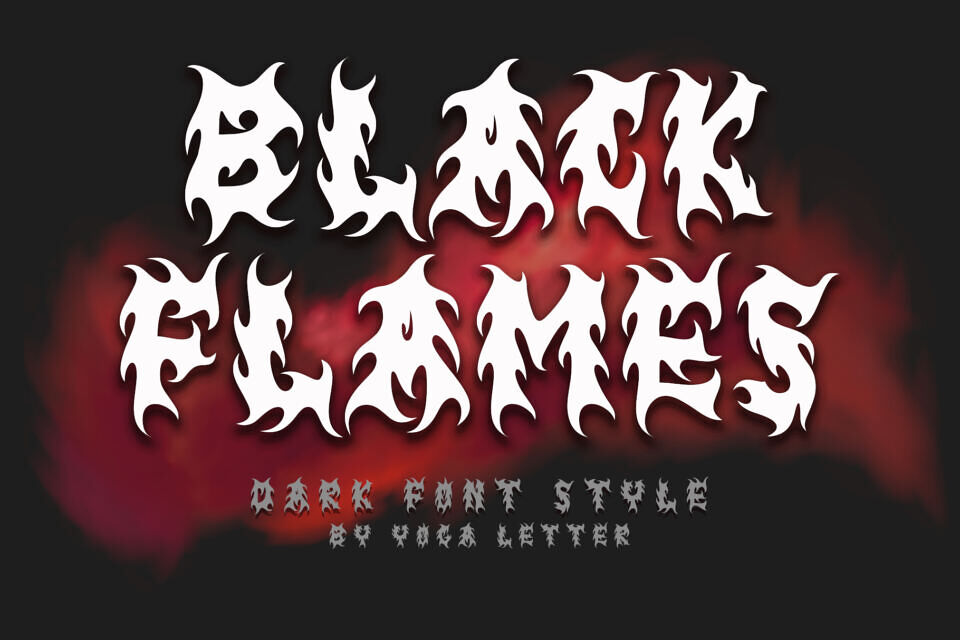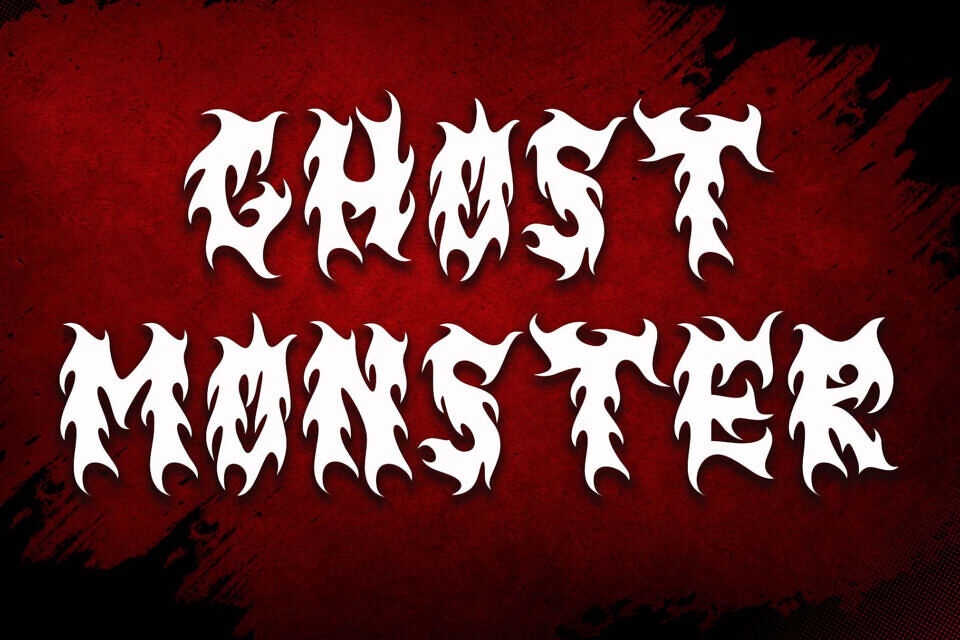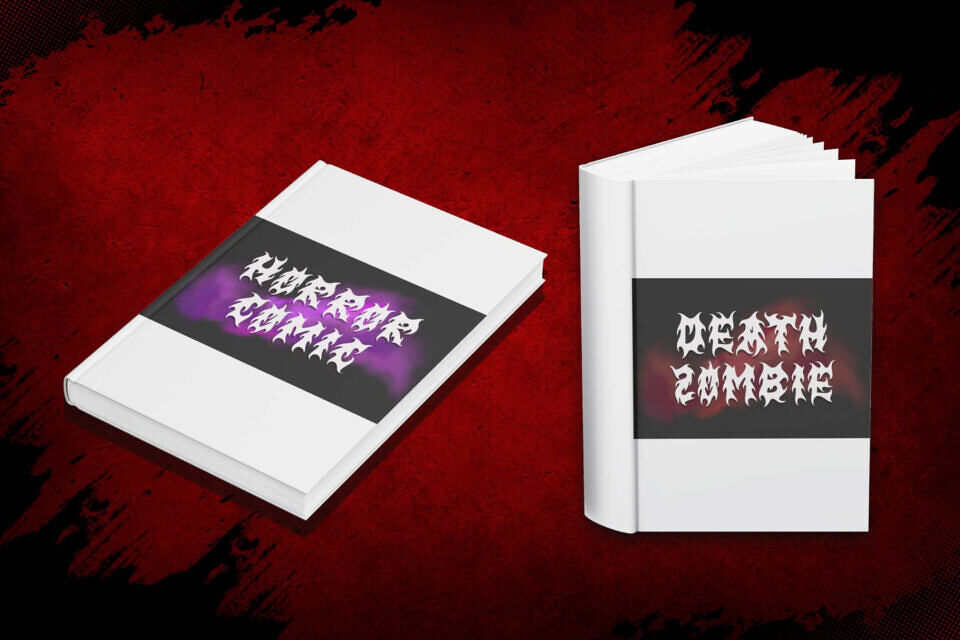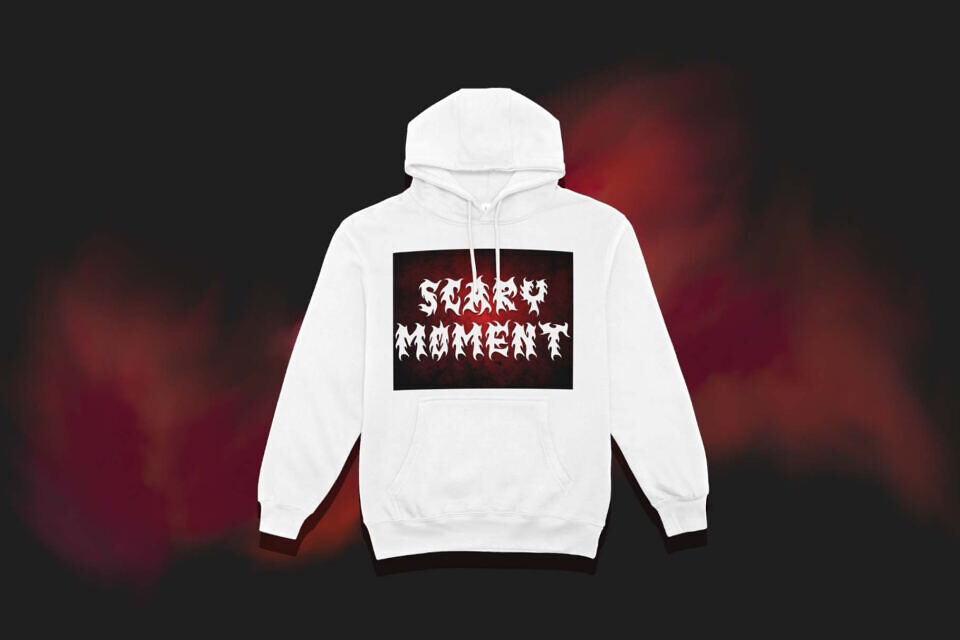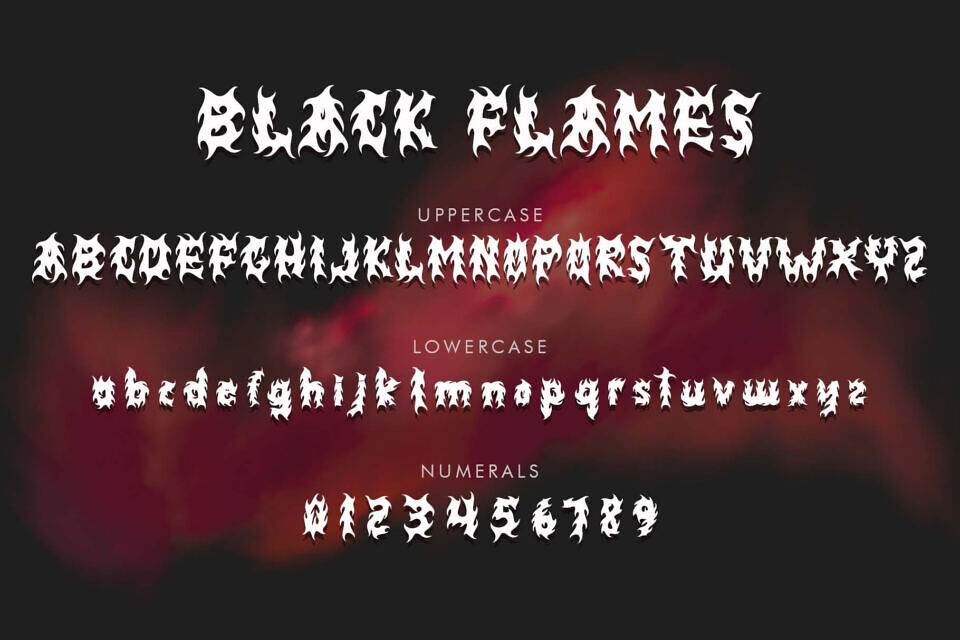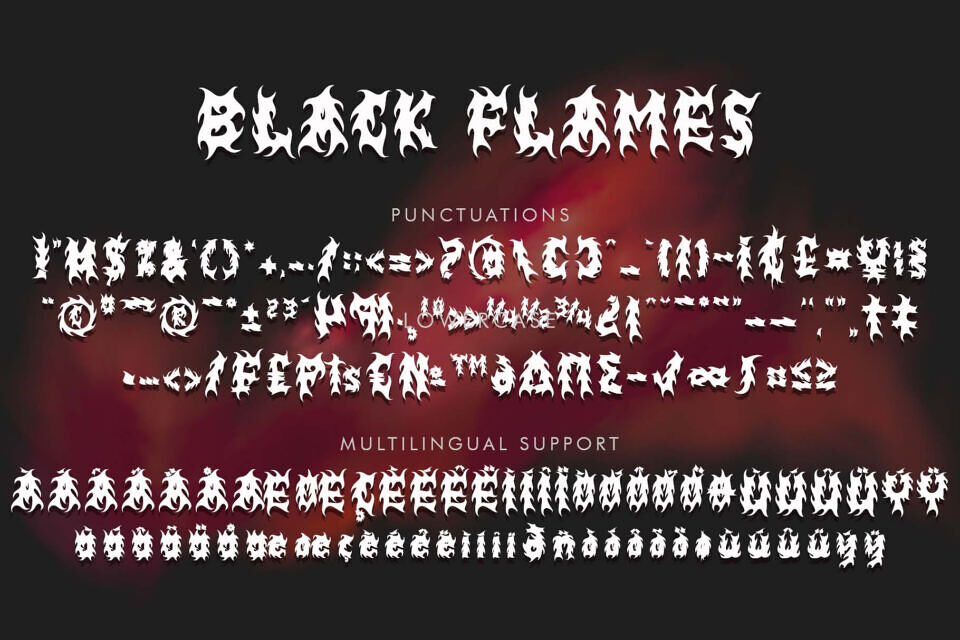
Black Flames is a bold and fiery display font with sharp, flame-shaped edges that bring intensity and drama to any design.
Its dark, gothic-inspired style makes it perfect for posters, metal band artwork, gaming covers, horror titles, and any project that needs a fierce and burning statement. This font is designed to ignite attention and leave a powerful impression.